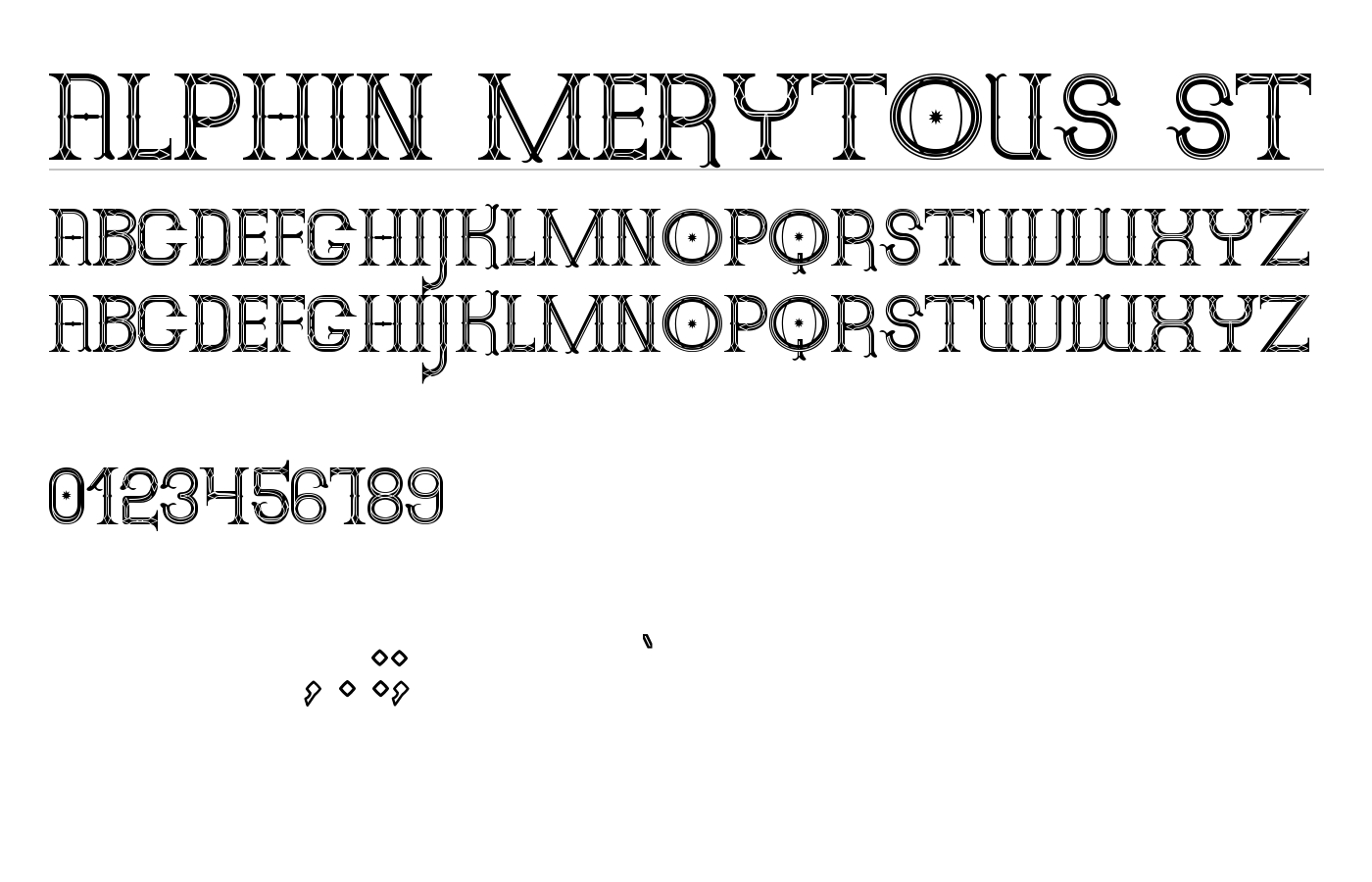
Alphin Merytous St is a decorative serif font with elegant, intricate detailing that combines classic serif elements with unique, artistic flourishes. Its thin yet structured strokes and ornamental shapes convey a vintage, luxurious feel, making it ideal for sophisticated branding, headlines, and display use where a refined, eye-catching style is desired. This font works especially well in creative projects that seek to blend tradition with artistic flair.
Alphin Merytous St Font
About Alphin Merytous St Font
| Font family | Alphin Merytous St Font |